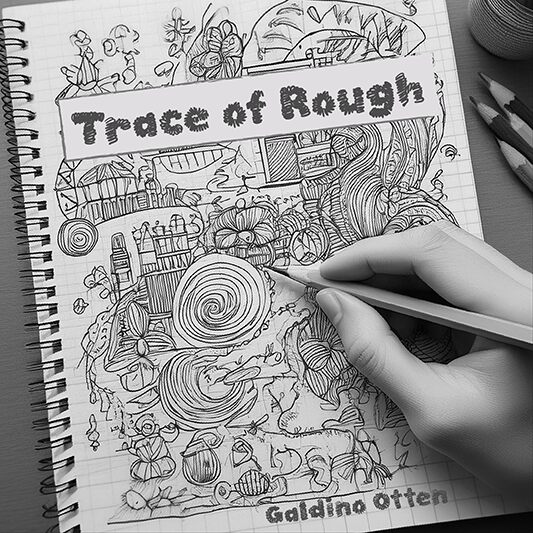
Trace of Rough
Trace of Rough font by Galdino Otten Fonts is a sketchy script font with a bold design. The dynamic handwriting style integrates slight imperfections in the letters, giving the font an authentically worn-out appearance and aesthetic. This eye-catching, experimental, and expressive font evokes creativity so hold on to it within your collection.
Instead of letting go, feature this free script font in typography artworks such as typography posters or album art covers. Use it for products that need a raw vibe such as beer labels, shoe packaging boxes/tags, book covers for fiction/fantasy novels, and skateboards. Other ideas can be tattoos or tattoo parlor branding including logo designs and signage.